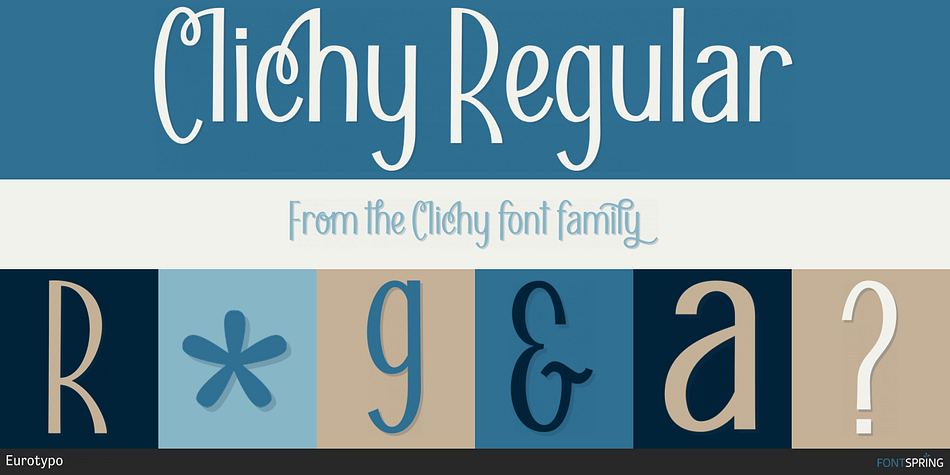
Clichy Regular
Designed by Carine de Wandeleer, Clichy is a hand display and retro font published by Eurotypo.
Clichy is a delightfully handwritten font with strong character.
Clichy is a font inspired by the successful Nuit font, looking for the same harmony and casual character, Nuit’s rounded strokes are now straight. Clichy has even more stylistic alternatives, decorative characters, ligatures, initial and terminal forms in upper and lower case, that allow you to mix and match pairs of letters. Also, with Clichy it is possible to write in capital letters.
Clichy will help your creativity and make your typographic work expressive and elegant.